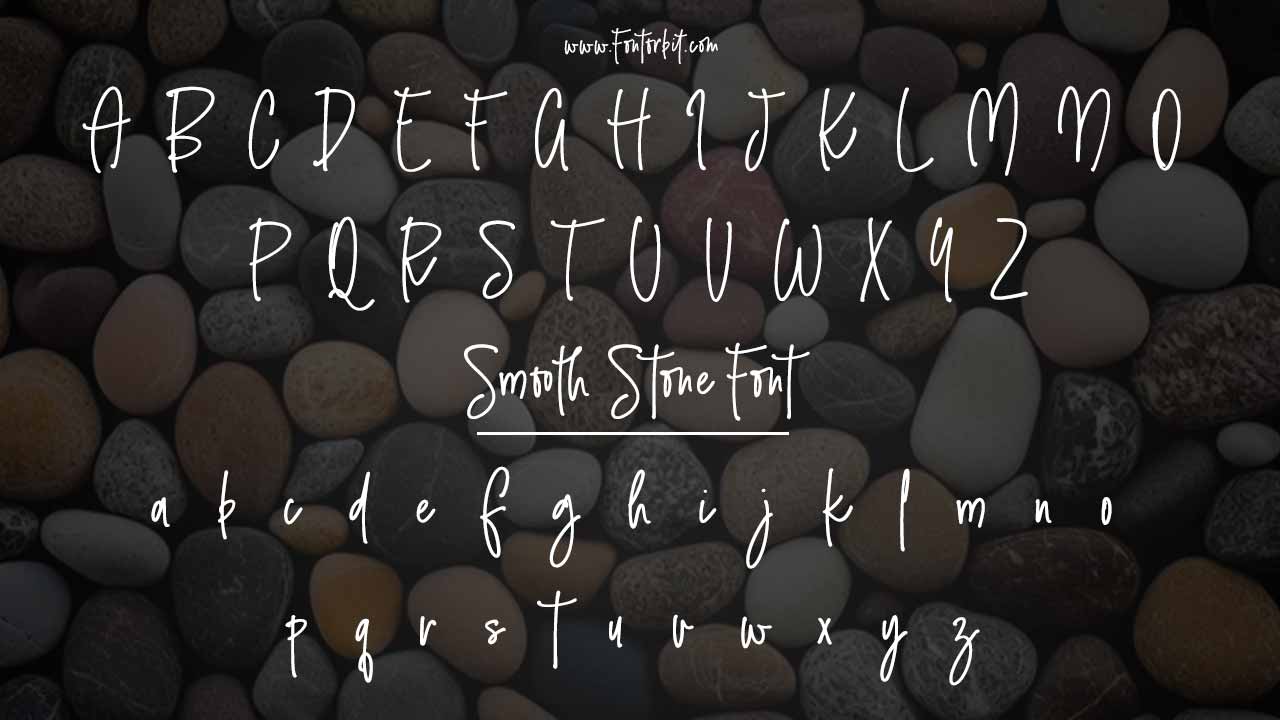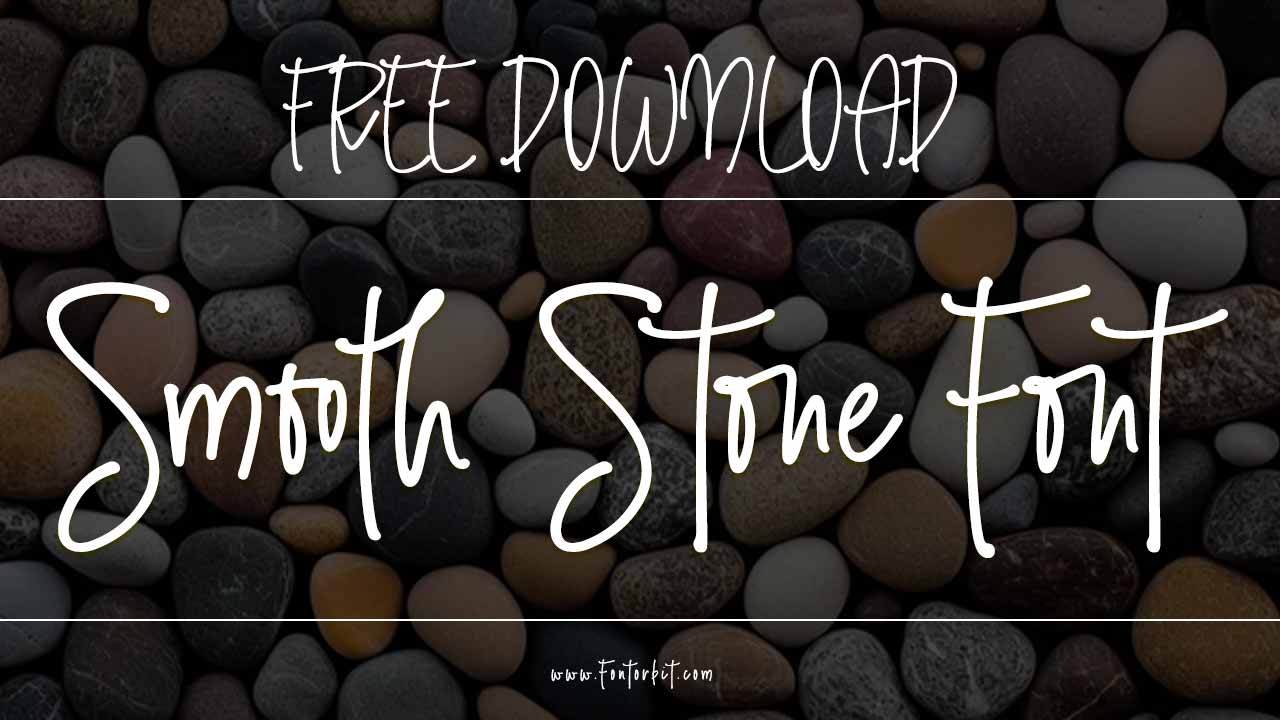
Smooth Stone Font is a stylish handwritten script with a smooth edge, making it perfect for branding, advertisements, and creative projects. Designed by Vlad Cristea, whether you’re designing for websites, posters, or product packaging, this font brings a touch of elegance to any work.
The Smooth Stone typeface is a handwritten font designed by Vlad Cristea, a talented designer known for his attention to detail. This script font is characterized by its smooth edge, fluid strokes, and an organic feel that resembles natural handwriting. It strikes a balance between elegance and readability, making it perfect for various design projects.
Unlike rigid or mechanical fonts, Smooth Stone embraces imperfections, mimicking the natural motion of a hand holding a brush or pen. It creates a personal, warm, and inviting feel, which makes it suitable for everything from stationery to special events branding.
Key Features Of Smooth Stone Script Font
Smooth Stone isn’t just another script font; it is packed with unique features that enhance its versatility. Let’s break down some of its key aspects:
- Handwritten Style – Natural, free-flowing design that enhances aesthetics.
- Smooth Edge – Refined strokes for a clean and polished look.
- Special Ligatures – Adds authenticity and variety to your text.
- Numerals & Punctuation – Includes a complete set for seamless typography.
- Versatile Use – Suitable for branding, stationery, and photography watermarks.
1.Smooth Edges For A Refined Look
As its name suggests, Smooth Stone has smooth edges, ensuring a polished and cohesive appearance. Unlike rough or distressed fonts, this script typeface maintains a consistent flow, making it an excellent choice for logos, branding, and product packaging.
2.Special Ligatures For A Natural Flow
Ligatures are essential in script fonts, as they help letters connect seamlessly. Smooth Stone includes special ligatures that improve the fluidity of the text, giving it an authentic handwritten touch. These ligatures create a harmonious look in words, making the text more visually appealing.
3.Narrow Spaces For A Compact Style
One of the defining characteristics of Smooth Stone is its narrow spaces between letters. This compact nature enhances readability without compromising elegance. It is particularly useful when working with modal windows, advertisements, or website headers where space is limited.
4.Full Set Of Numerals And Punctuation
Beyond its stylish letters, Smooth Stone also includes numerals and punctuation marks, ensuring consistency across different types of content. This feature makes it ideal for projects that require both text and numbers, such as event invitations, posters, and design projects that involve pricing or dates.
5.Versatility In Various Design Categories
The Smooth Stone Script Font falls under the calligraphy and display font category, meaning it is perfect for branding, stationery, watermark designs, posters, and more. Its adaptability ensures that it fits seamlessly into future design projects, regardless of the theme or style.
Applications Of Smooth Stone Font
Thanks to its sophisticated and natural look, Smooth Stone is widely used in various fields. Here are some popular applications:
1.Branding & Logos
A well-designed font can set a brand apart. The Smooth Stone script is an excellent choice for creating logos, as it conveys personality and elegance. Whether used for a boutique, a photography studio, or a high-end product, this font adds a touch of class.
2.Product Packaging & Advertisements
Brands looking for an organic, handcrafted feel often turn to Smooth Stone for product packaging and advertisements. Its handwritten appeal makes it ideal for artisanal and premium products.
3.Stationery & Special Events
From wedding invitations to thank-you cards, Smooth Stone enhances stationery designs with its graceful strokes. Its elegant style makes it a top choice for special events, ensuring that invitations and announcements look stunning.
4.Web & Digital Design
In the digital space, fonts must be both stylish and legible. Smooth Stone fits perfectly in website headers, modal windows, and social media graphics, making digital content more engaging and visually appealing.
5.Photography Watermarks
Photographers use Smooth Stone to create stylish watermarks that add a professional touch to their images. A well-designed watermark can protect intellectual property while maintaining a visually appealing signature.
6.Escape From Standard Fonts
Many designers struggle to find unique fonts that stand out. Smooth Stone escapes overused typefaces, offering a fresh and original alternative for future design projects.
4.How Does It Compare To Other Script Fonts?
Its smooth edge and ability to fit narrow spaces make it stand out.
6.What Makes This Font Unique?
Its blend of elegance and versatility makes it suitable for various designs.